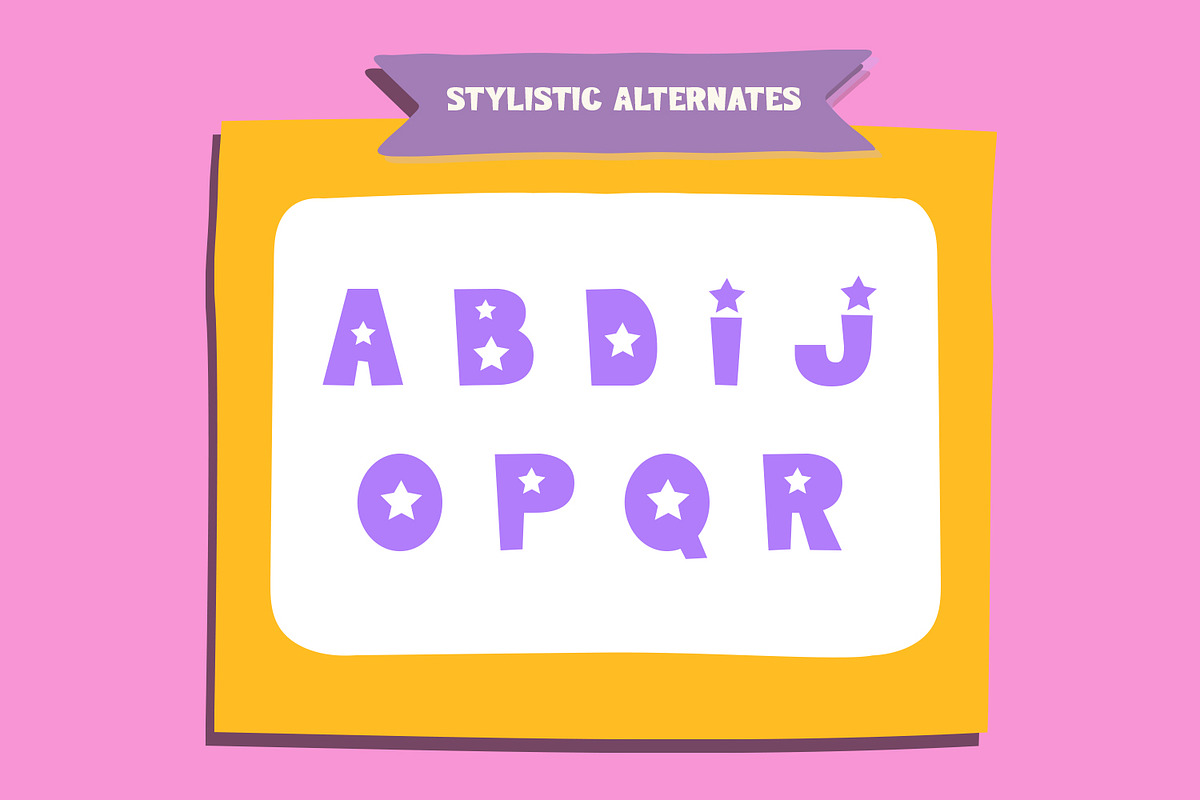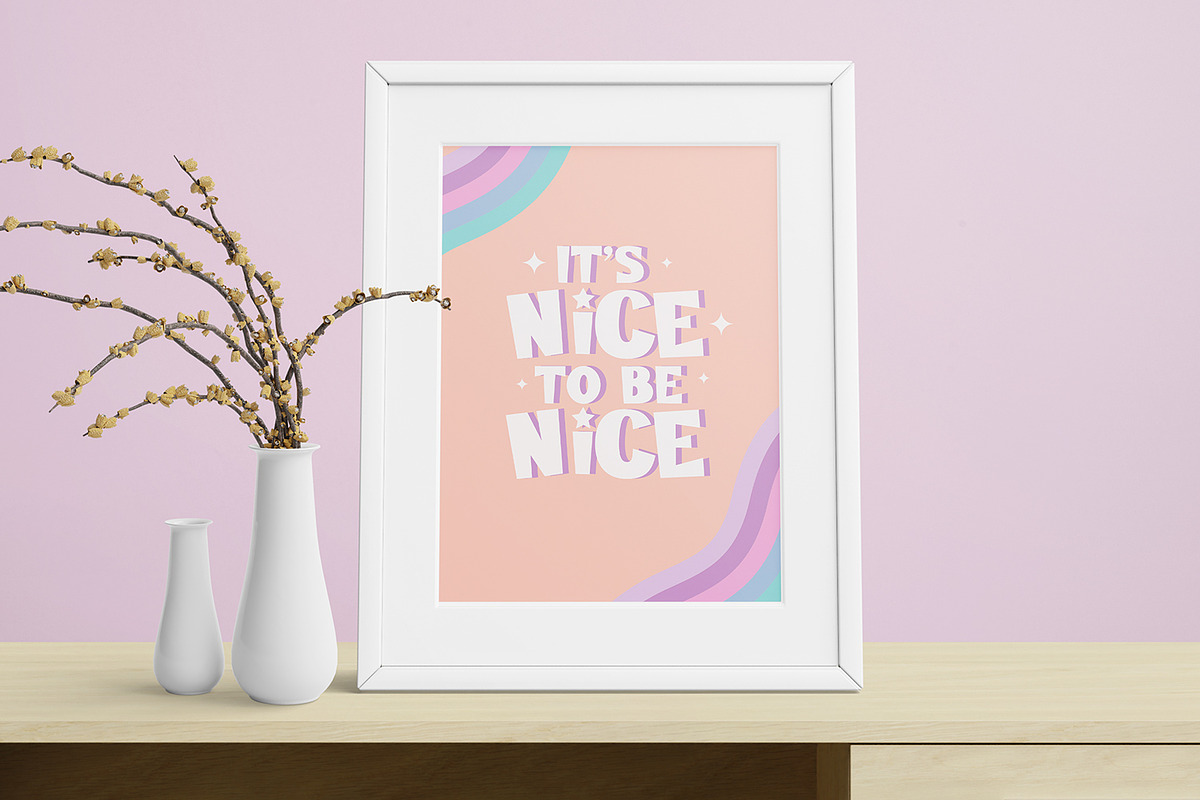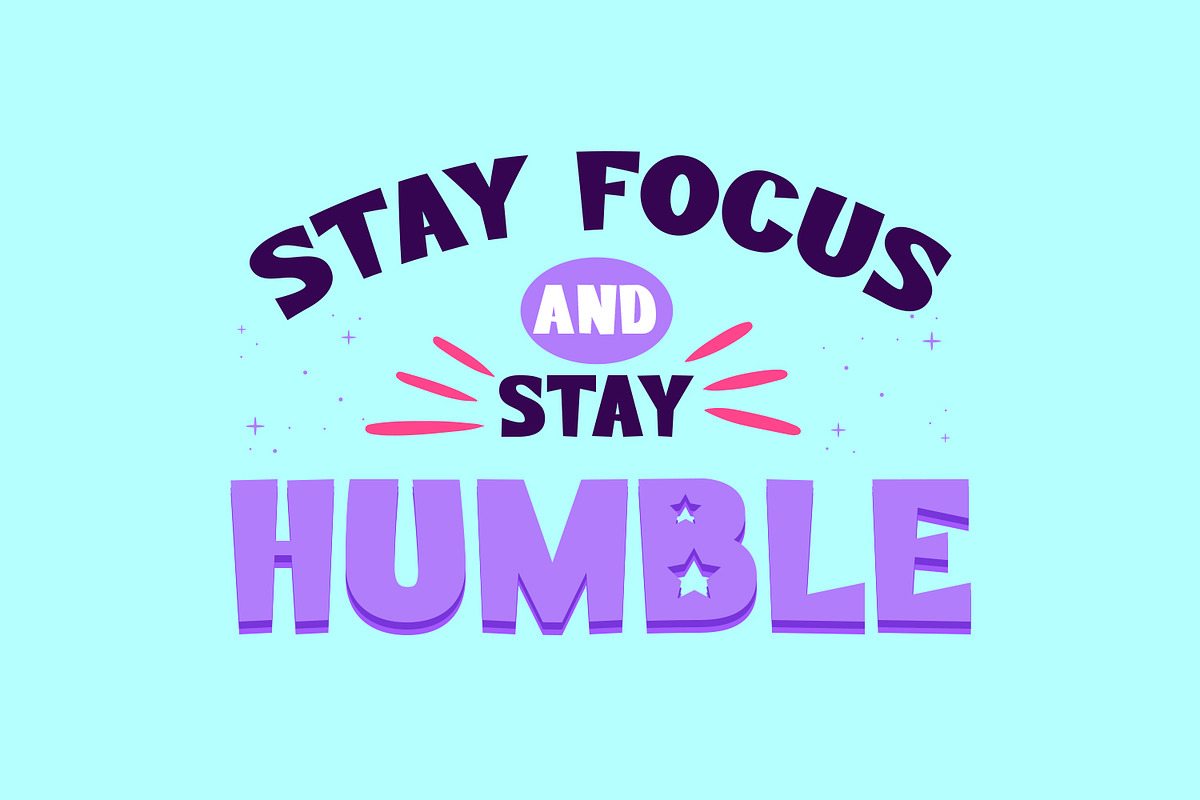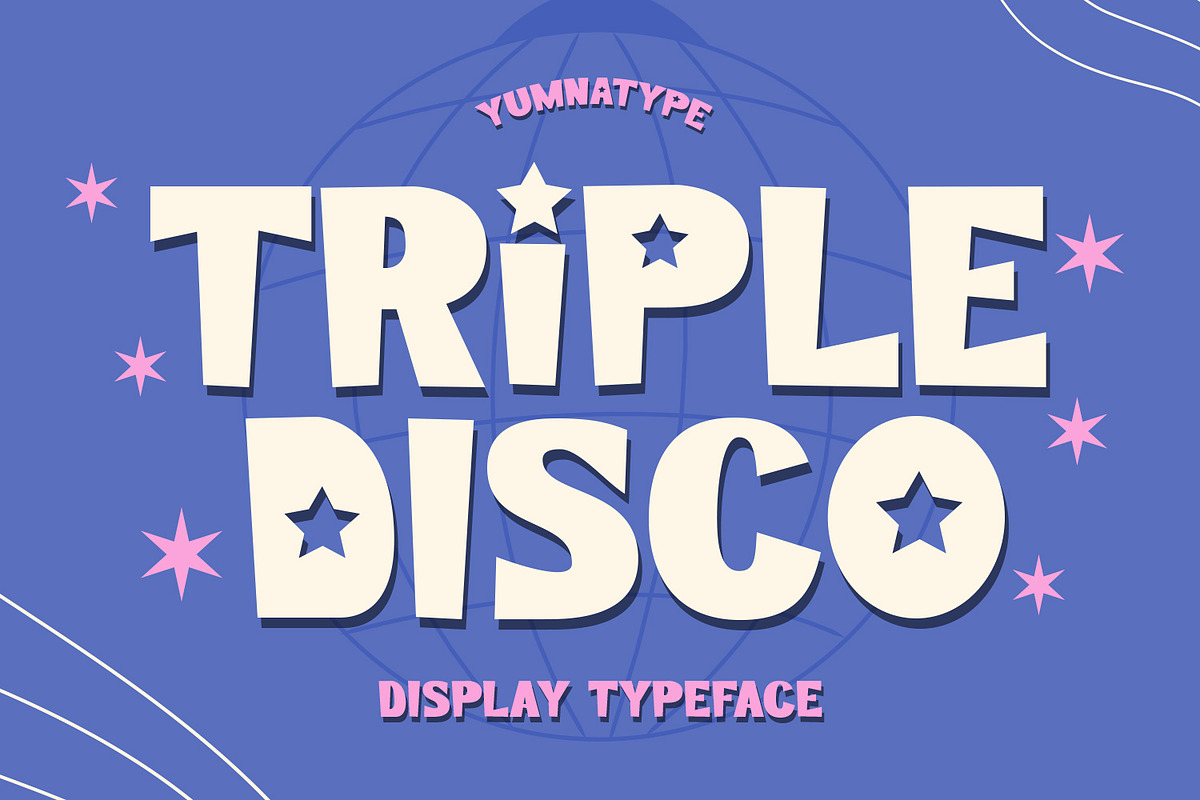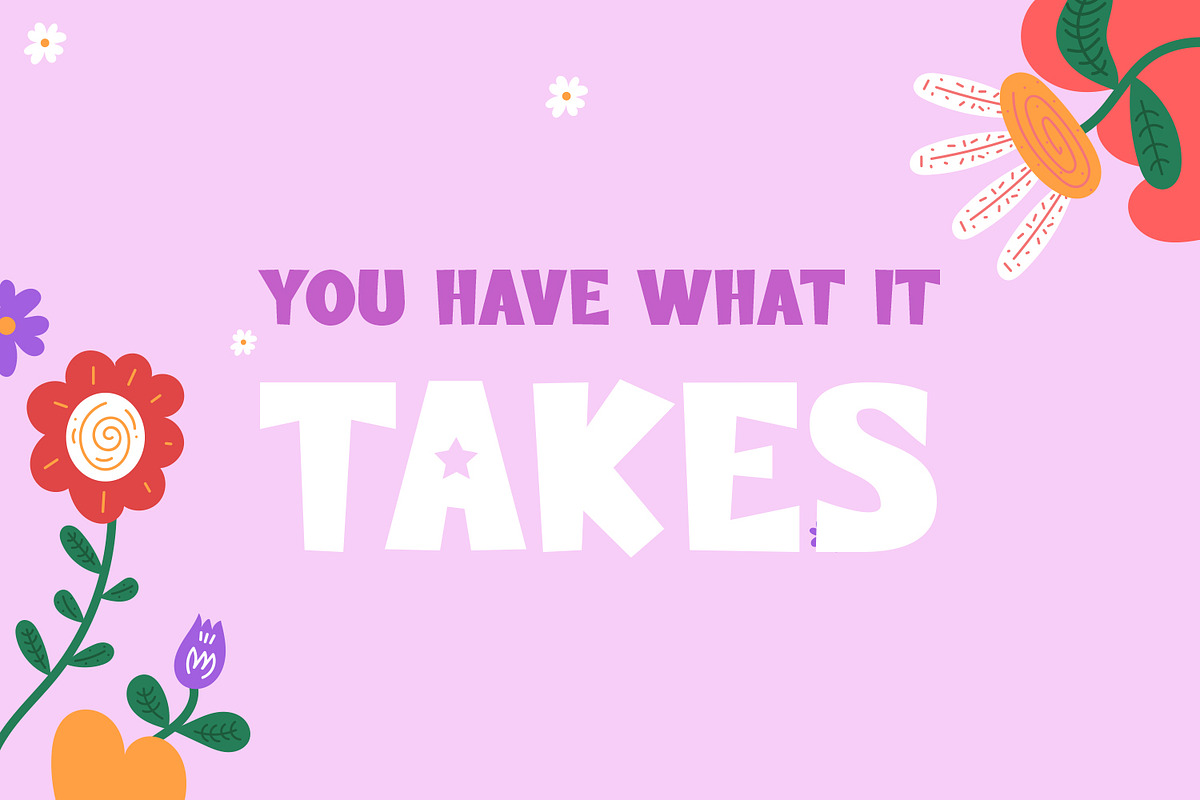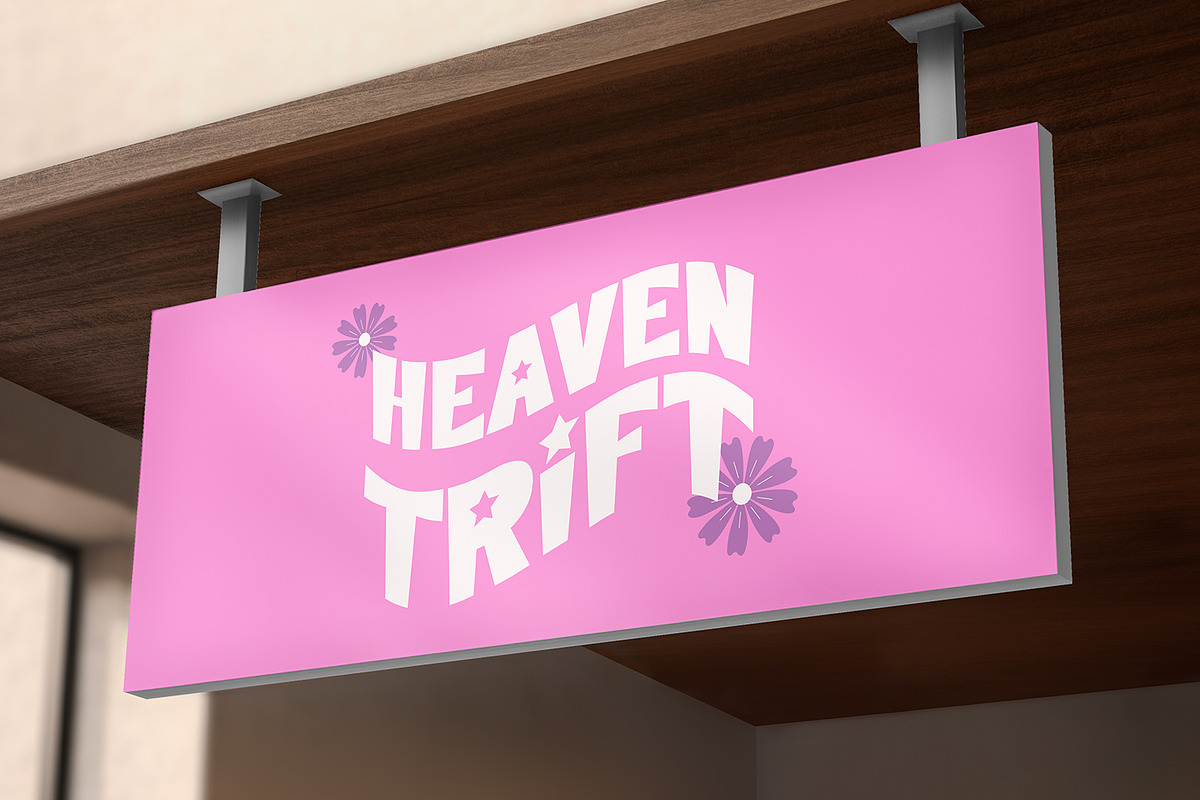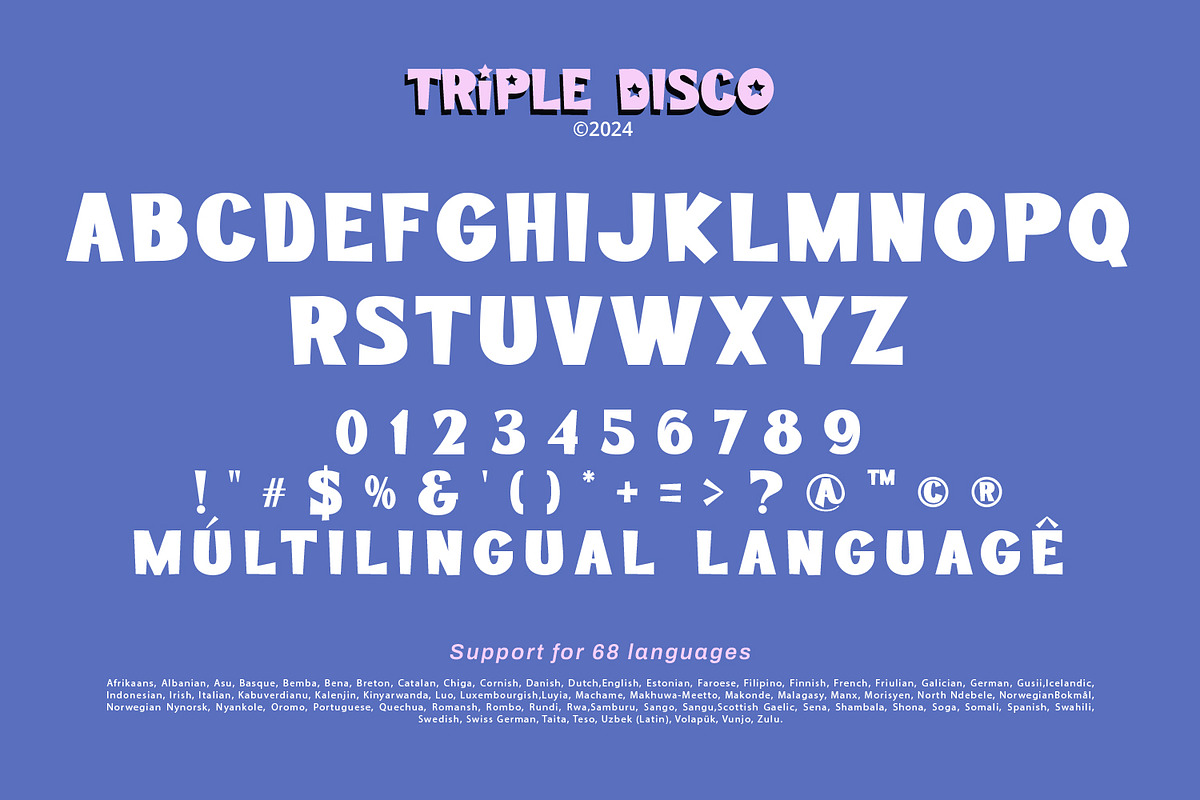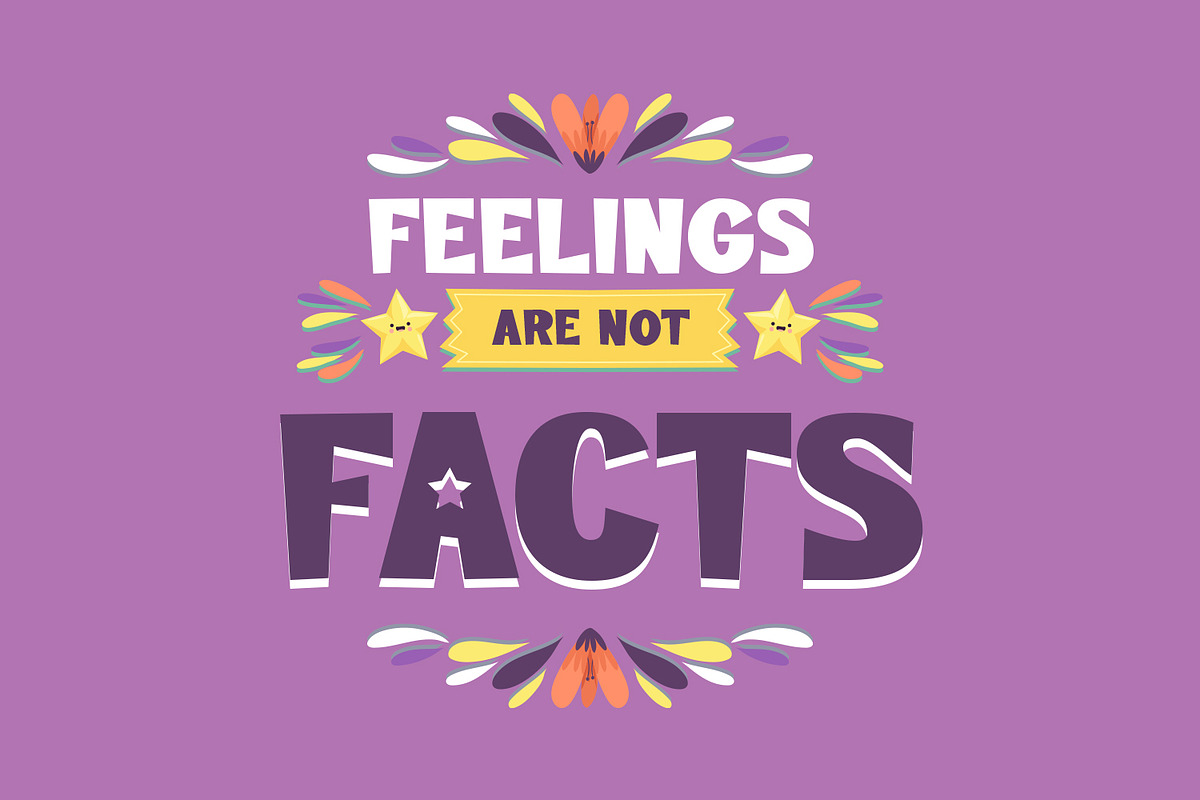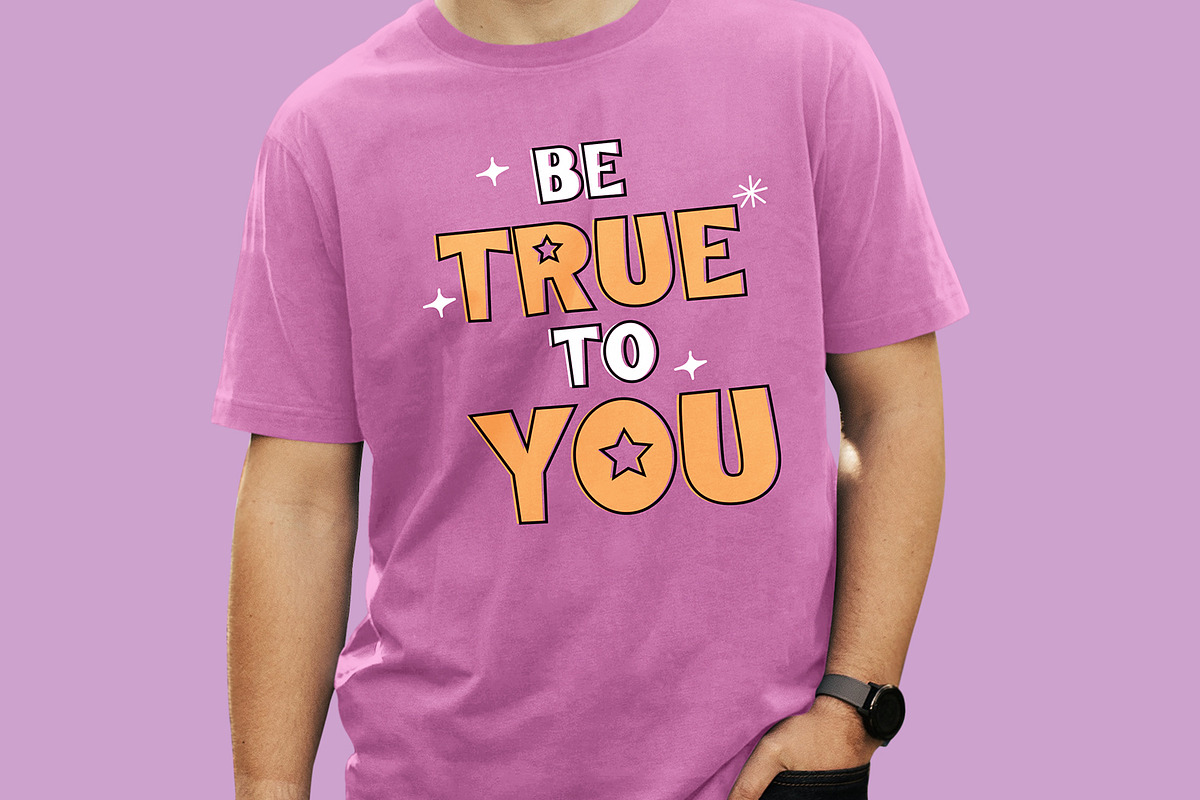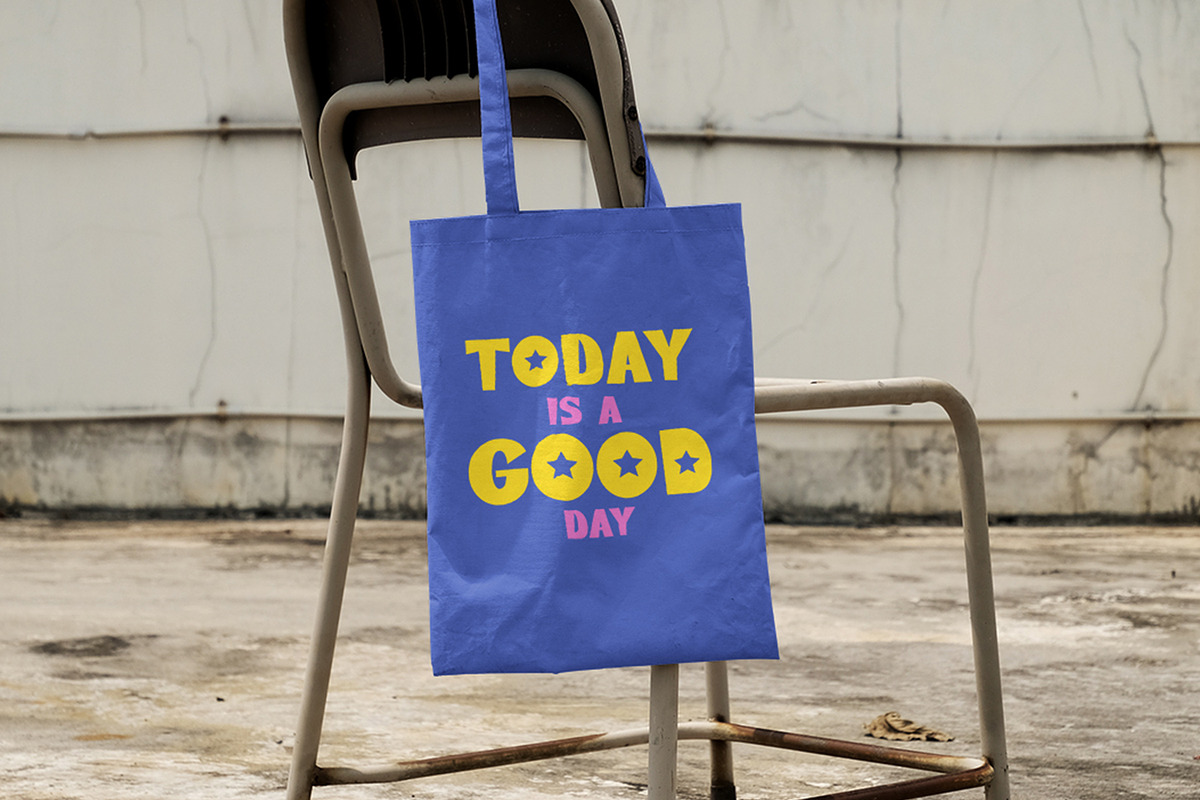
Triple Disco
Triple Disco is a dynamic display font designed in uppercases to make a bold statement. With its bold weight, Triple Disco exudes confidence and impact. Each letter stands out prominently, ensuring that your message is conveyed with clarity and authority. The low contrast between the thick and thin strokes adds to the font's solid and uniform appearance.
The sturdy shapes of Triple Disco give it a distinctive and reliable feel. The letters are designed with a firm structure, adding a sense of strength to the overall font. In addition, enjoy the features here.
Triple Disco fits in headlines, logos, posters, flyers, branding materials, print media, editorial layouts, and many more designs. Find out more ways to use this font by taking a look at the font preview.